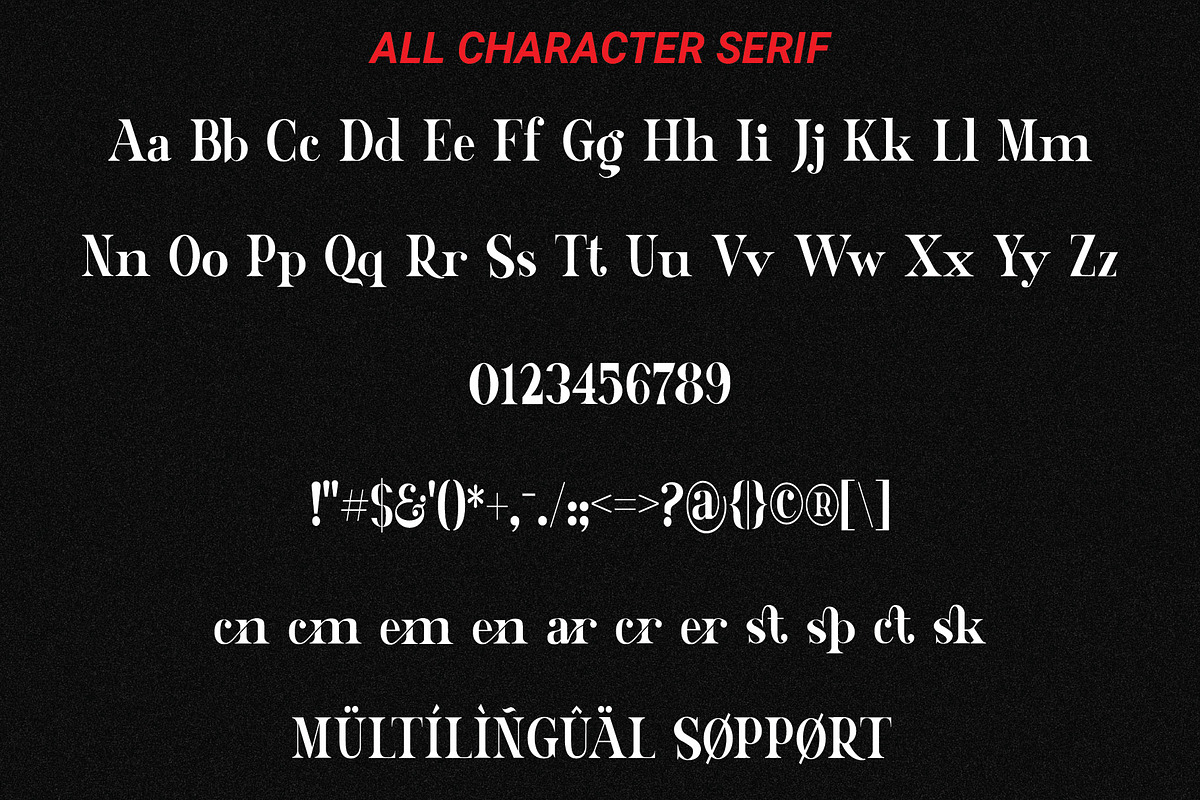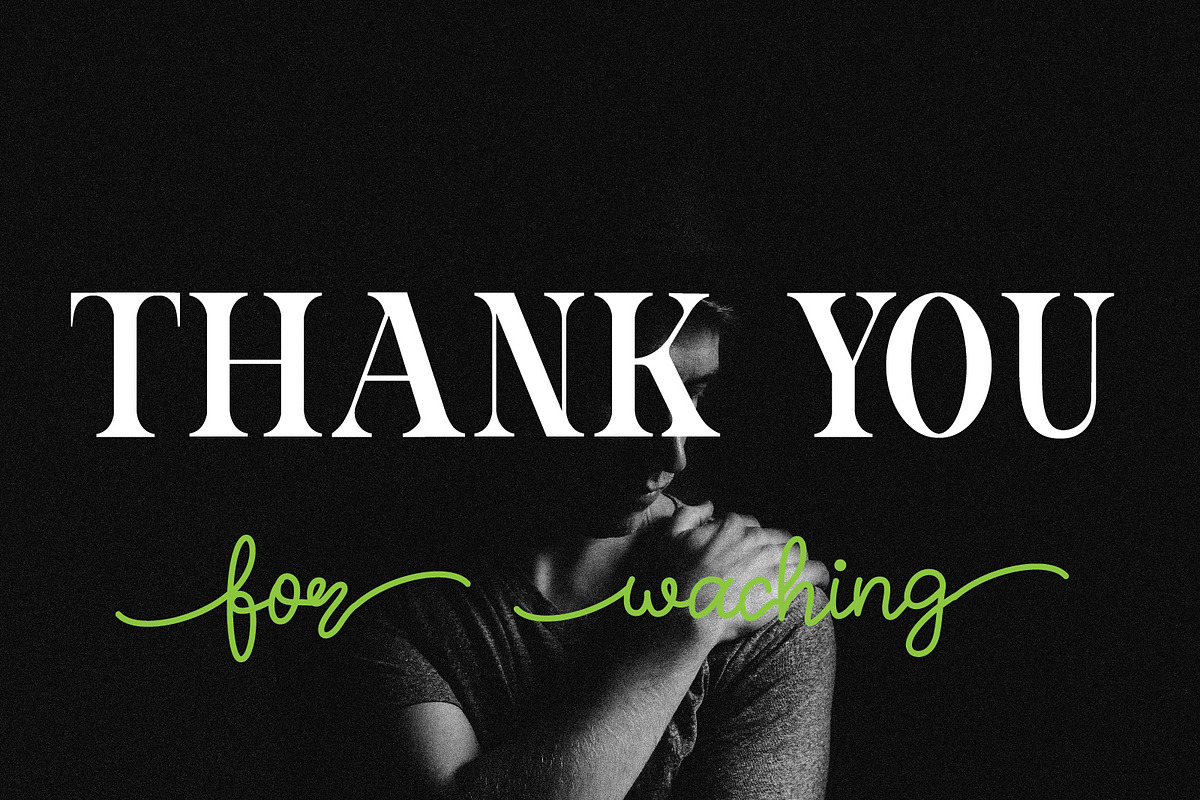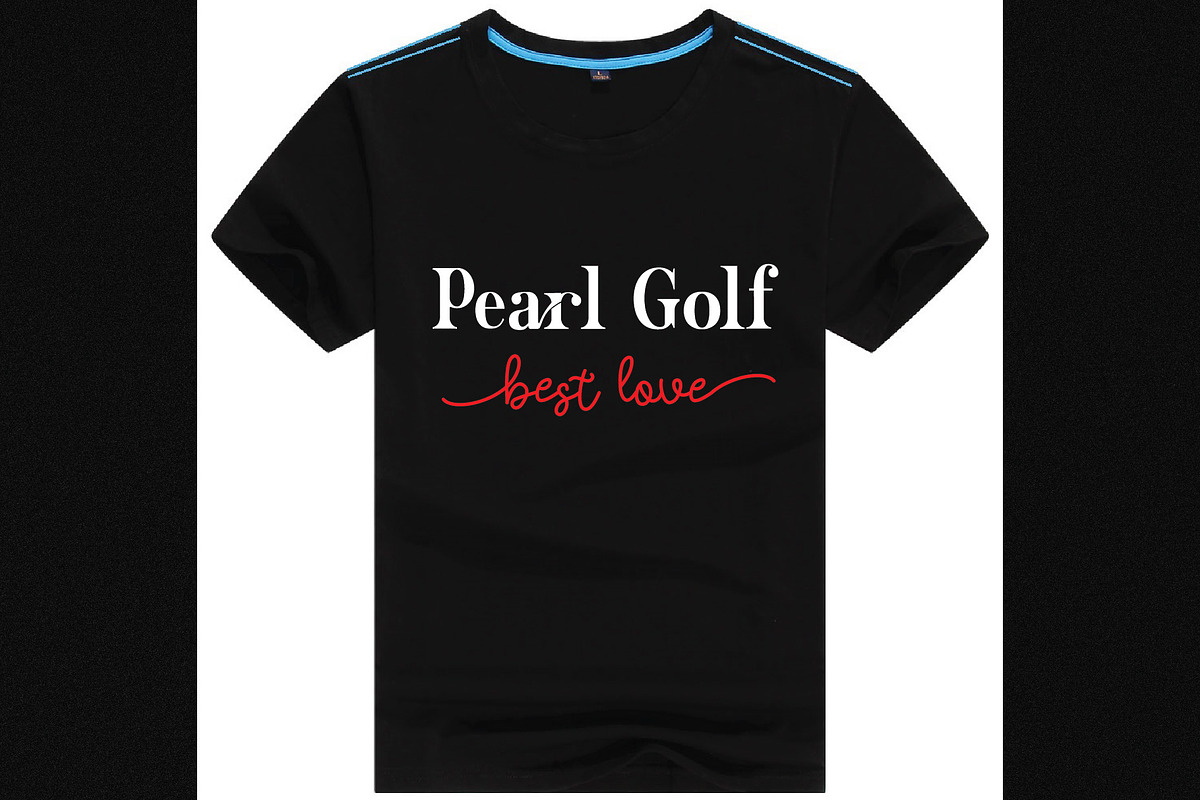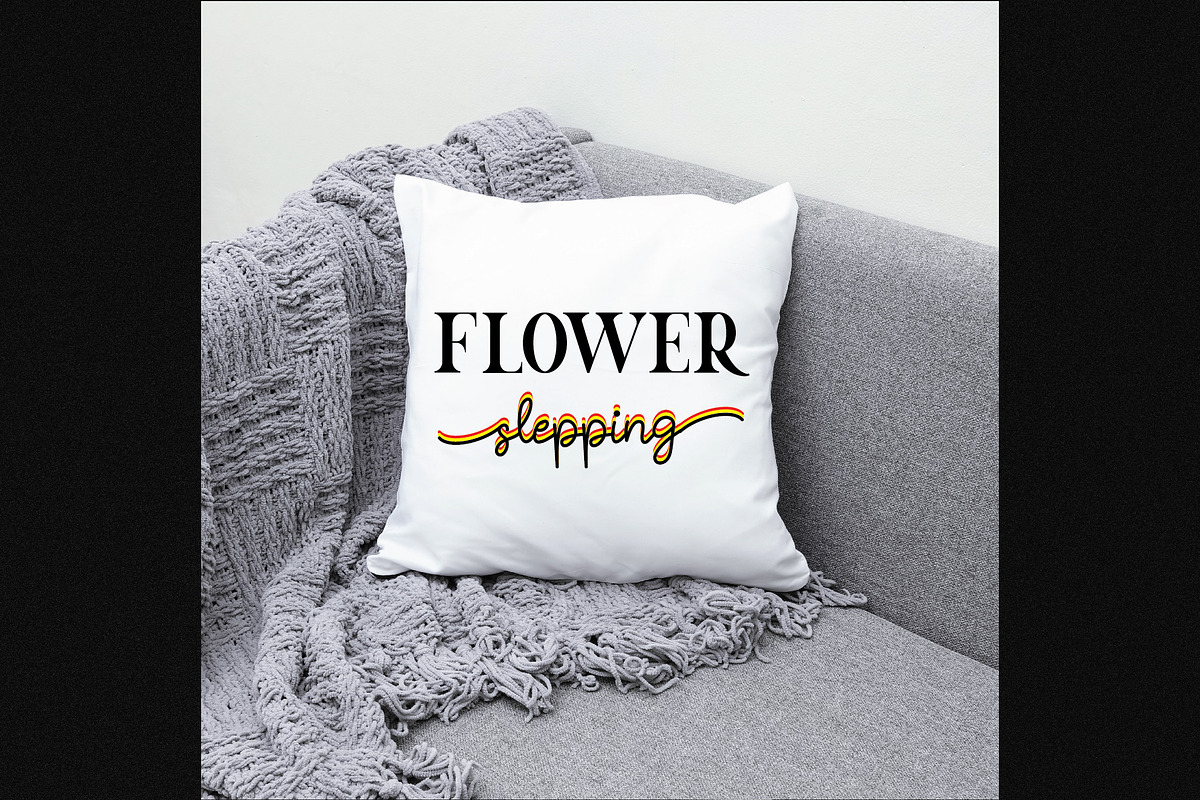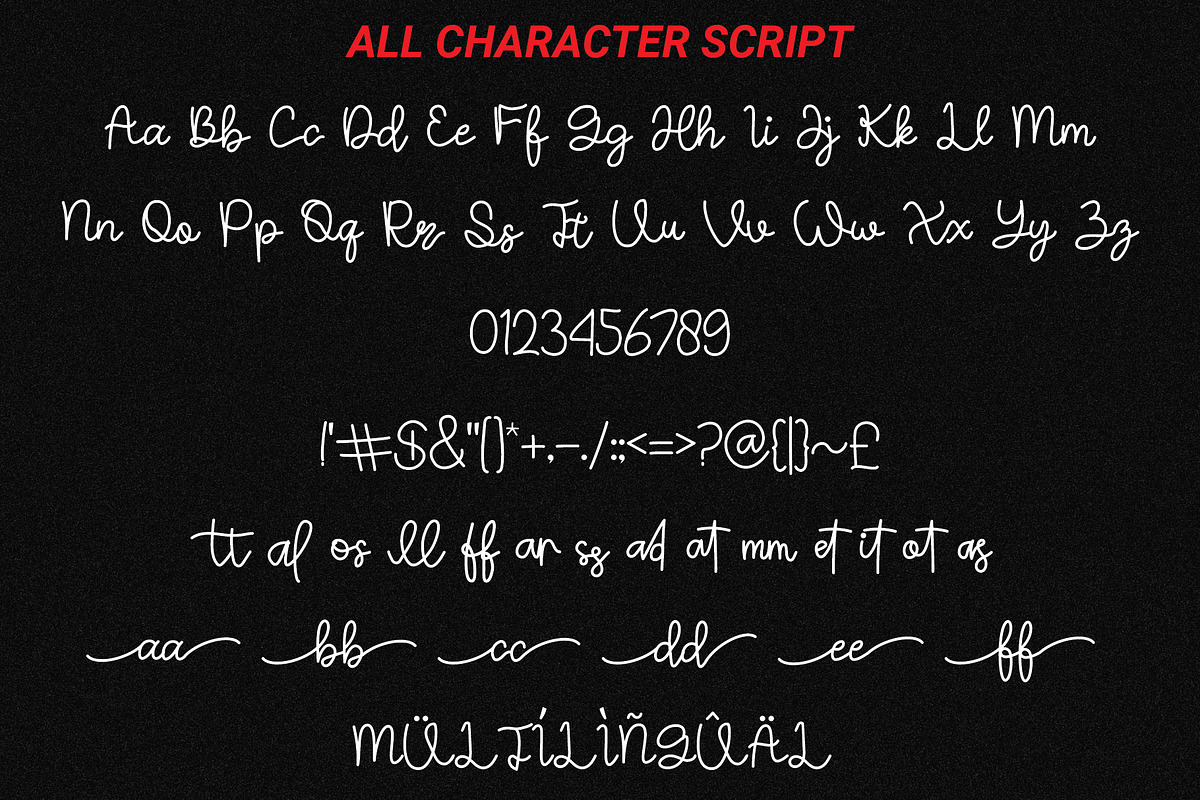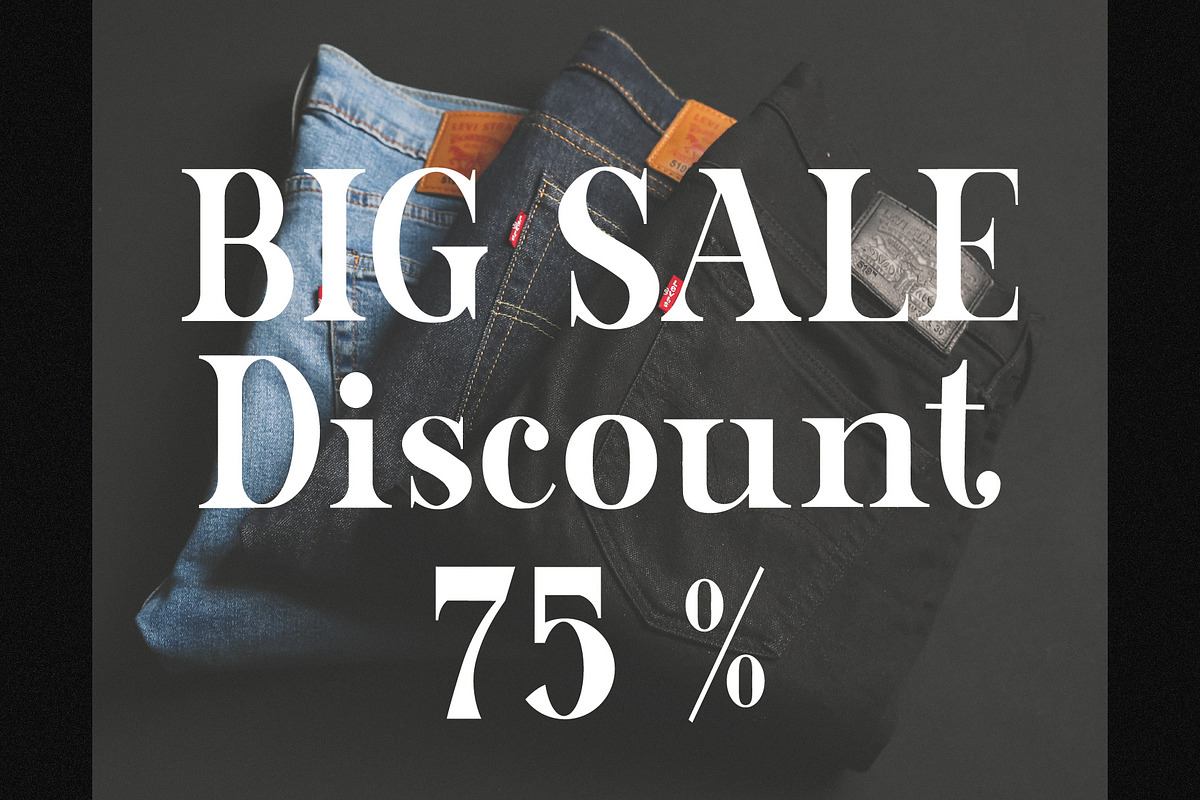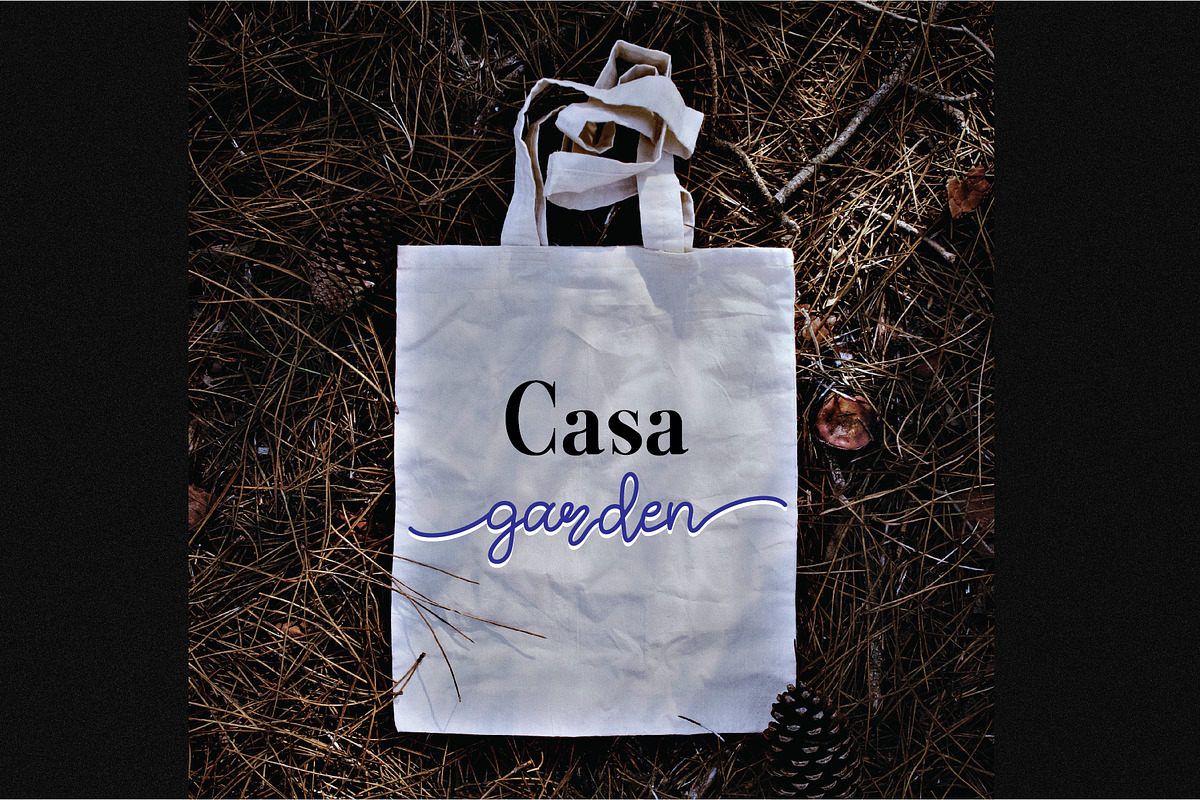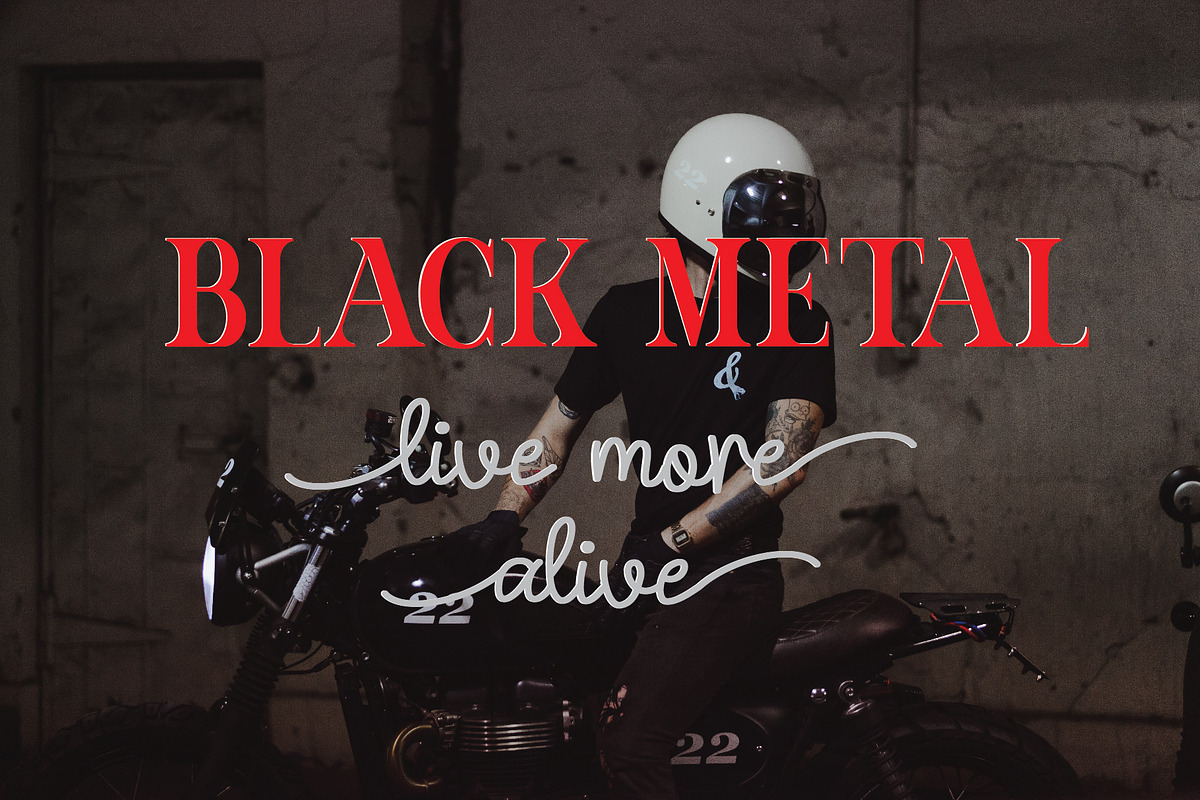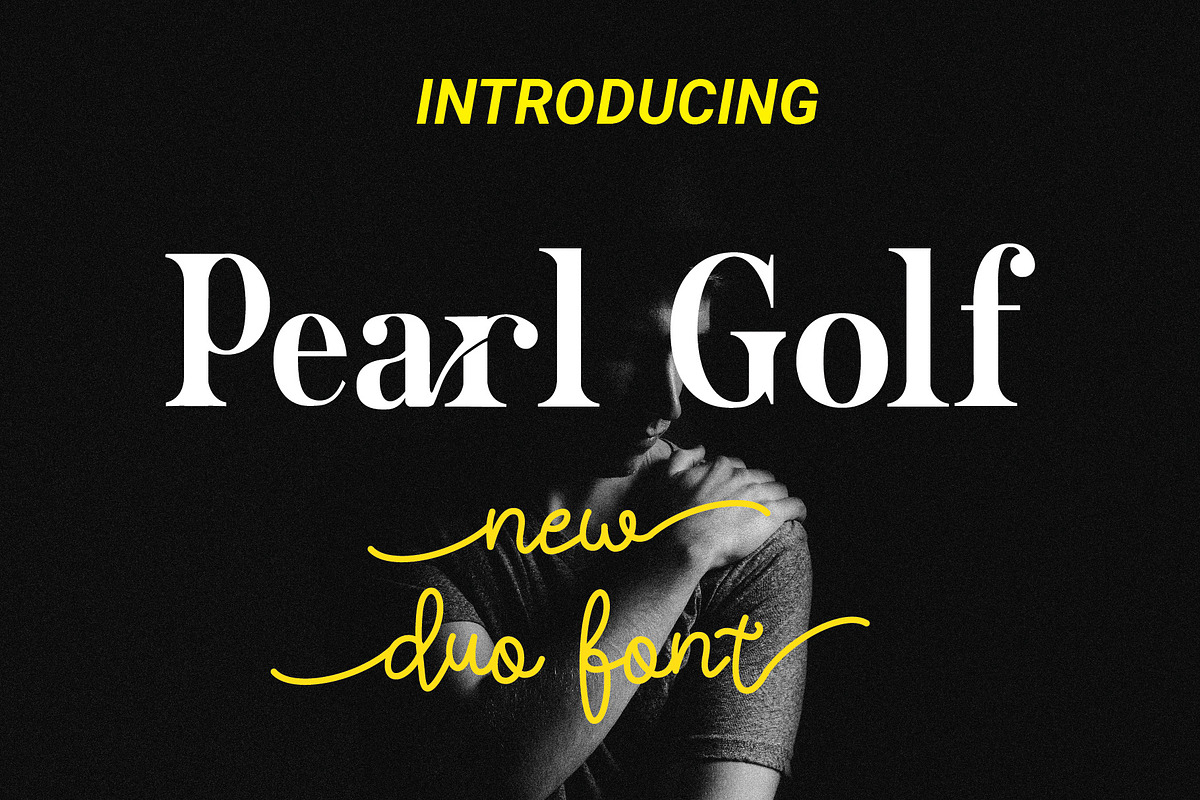
Pearl Golf
Pearl Golf is a combination of two types of fonts, namely serif and script. You can choose one of them or use them together so that the font looks elegant. Complete it with ligatures, alternatives and swsh to give a more complete impression. This font is suitable for screen printing, forsters, invitations or anything else according to your needs with OTF and TTF files in it.